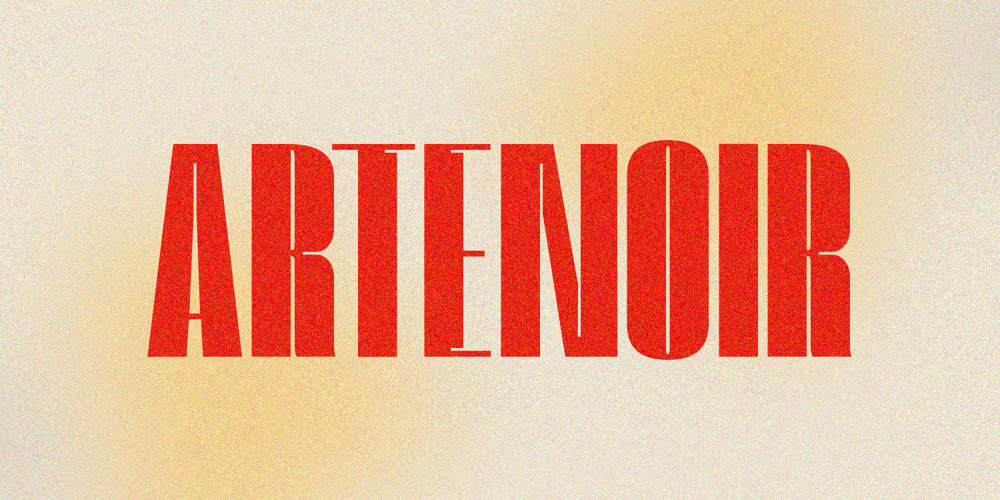
Artenoir Display Font Family was designed by Evin Tony and published by FoxType. Artenoir Display contains 4 styles and family package options. Artenoir Display is a Brand New Elegant Typeface with 4 Variants. It has a dependable and uncompromising style, with controlled letterforms and modern touches. It looks amazing in logos, magazines, and movies. Artenoir Font would be perfect for branding, headlines, Captions, paragraphs, and posters. The various weights allow you to experiment with a wide range of applications. It’s created to make an impression without sacrificing its beauty and readability. It’s shown a clean, warmth, quirky, yet still purposed to be versatile.The Typeface includes Four Weights -Regular, Medium, SemiBold and Bold. Numerals and Extended Punctuation (248 Glyphs). Clean and Modern Glyphs Expert Kerning and Quality Crafting. Thank you for taking the time to look into the font.